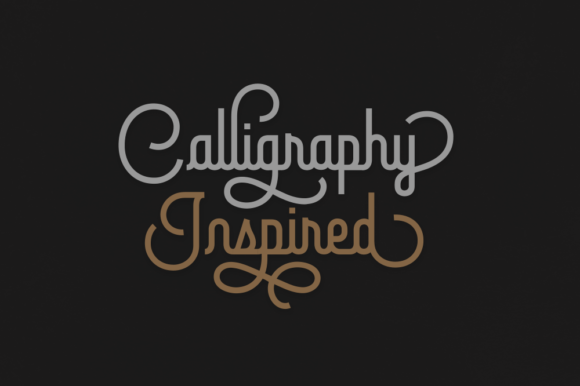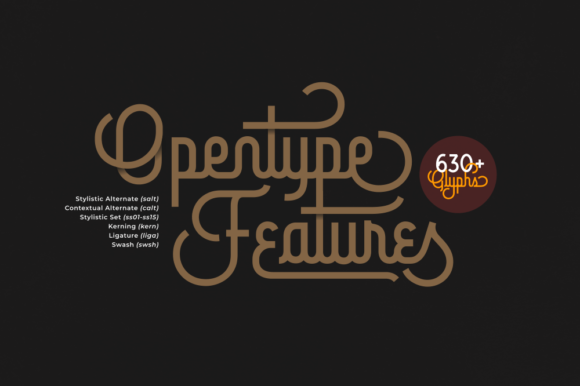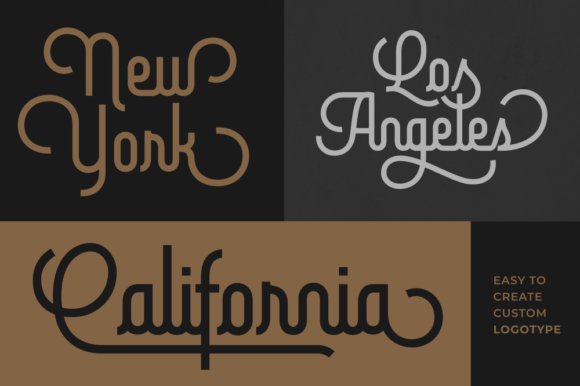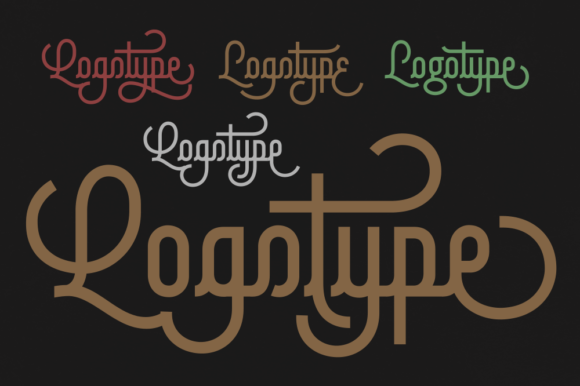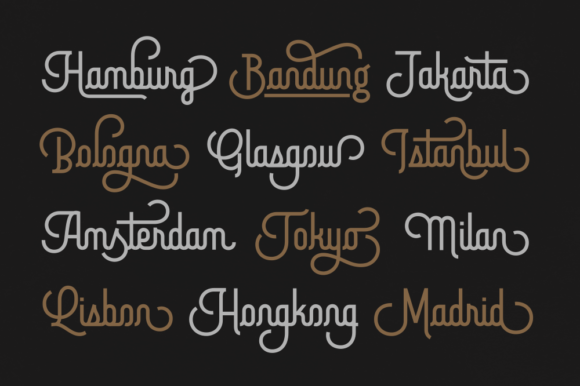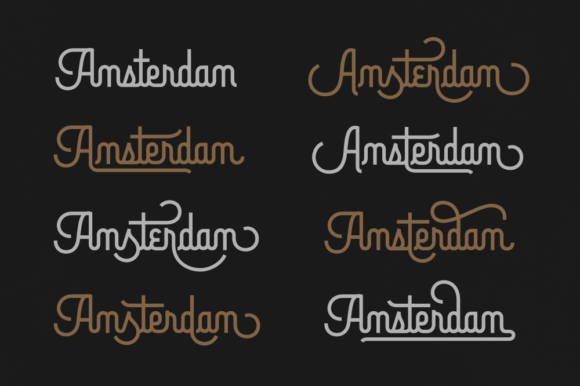
Discover the Timeless Charm of Brotherline Font: Elevate Your Designs with a Unique Handwritten Style
Are you tired of using the same old fonts in your designs? Do you want to add a touch of personality and whimsy to your creations? Look no further than Brotherline Font, an original handwritten font that is sure to capture the hearts of designers and crafters alike. In this article, we’ll dive into the world of Brotherline Font, exploring its unique features, benefits, and uses.
What is Brotherline Font?
Brotherline Font is a one-of-a-kind handwritten font created from a single bold mono-line. This distinctive design gives the font its classic and friendly feel, making it perfect for a wide range of design projects. Whether you’re creating a logo, branding materials, or social media graphics, Brotherline Font is sure to make your designs stand out from the crowd.
The Unique Features of Brotherline Font
So, what sets Brotherline Font apart from other fonts? Here are just a few of its unique features:
- Classic yet Friendly Style: Brotherline Font boasts an incredibly classic style, while still maintaining a friendly and approachable feel. This makes it perfect for designs that require a touch of sophistication and warmth.
- Handwritten from a Single Bold Mono-Line: The font’s bold mono-line design gives it a distinctive and cohesive look that’s hard to find in other fonts.
- Highly Versatile: Brotherline Font is suitable for a wide range of design projects, from logos and branding materials to social media graphics and more.
Benefits of Using Brotherline Font
So, why should you choose Brotherline Font for your designs? Here are just a few benefits of using this amazing font:
- Adds Personality to Your Designs: Brotherline Font is the perfect way to add a touch of personality and whimsy to your designs, setting them apart from the competition.
- Enhances Brand Identity: With its unique and memorable style, Brotherline Font can help enhance your brand identity and make your designs more recognizable.
- Easy to Read and Understand: Despite its bold and artistic design, Brotherline Font is incredibly easy to read and understand, making it perfect for designs that require clear communication.
Using Brotherline Font in Your Designs
Now that we’ve explored the features and benefits of Brotherline Font, let’s talk about how to use it in your designs. Here are a few tips to get you started:
- Pair it with Other Fonts: Brotherline Font pairs perfectly with other fonts, so don’t be afraid to experiment with different combinations to find the perfect look for your design.
- Use it for Headings and Titles: Brotherline Font is perfect for headings and titles, where its bold and artistic design can really shine.
- Experiment with Colors and Textures: Brotherline Font looks amazing in a variety of colors and textures, so don’t be afraid to get creative and try out different effects.
| Font Name | Brotherline Font |
| Author | hptypework |